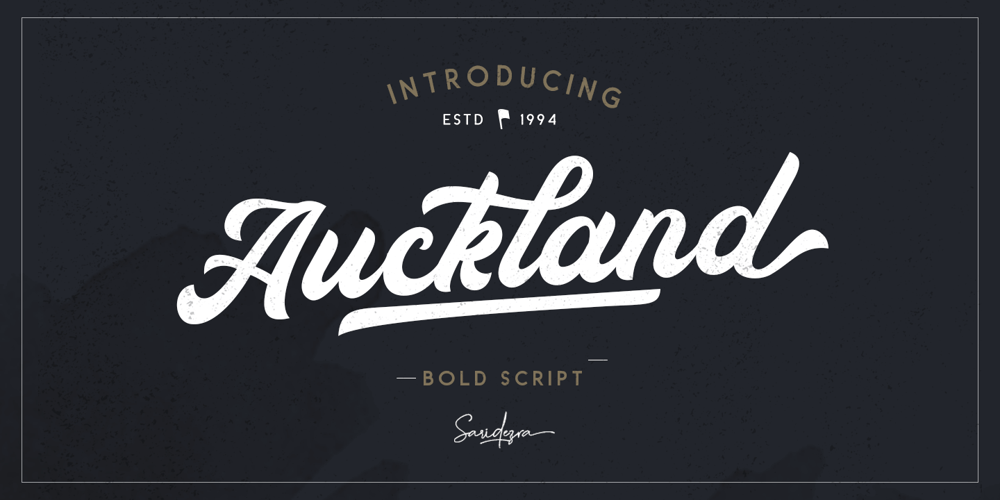
Auckland Script Font Family was designed by Sarid Ezra and published by Sarid Ezra. Auckland Script contains 1 styles and family package options. Auckland Script is a bold script that contains Uppercase, Lowercase, Numerals, Accents, Punctuation, 5 sets of alternates, Ligatures, Swashes, and also Underline. You can use it to make logos for branding, as well as for apparel design, and quotes. This font also already PUA Encoded.